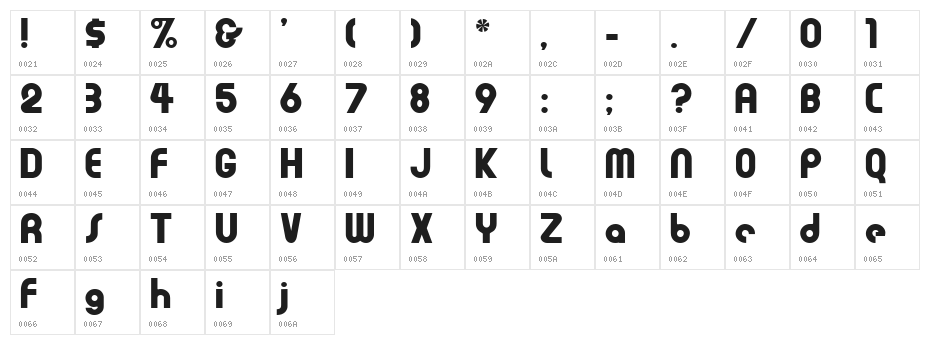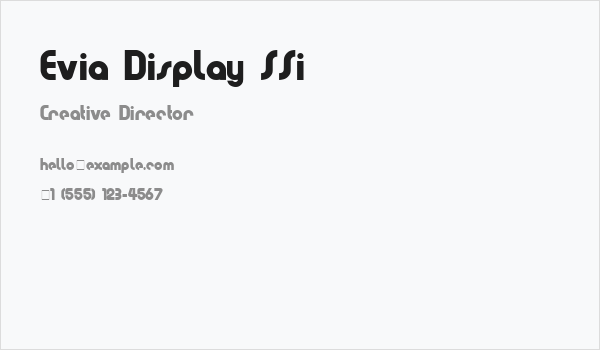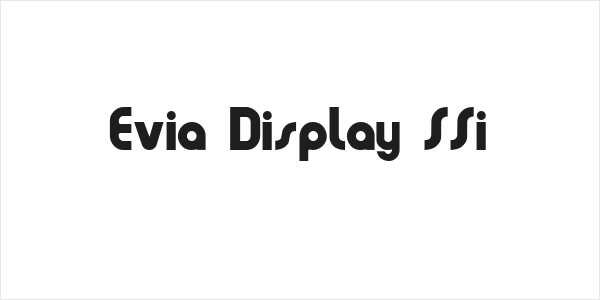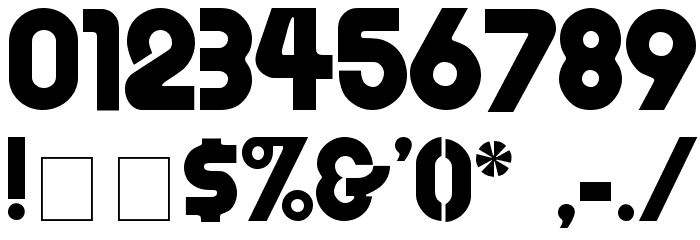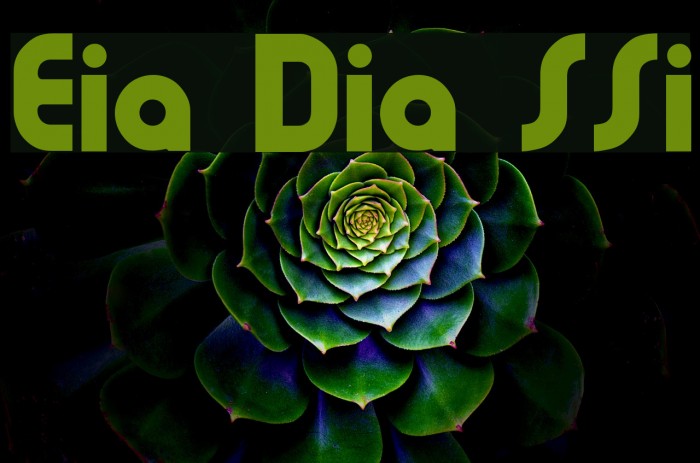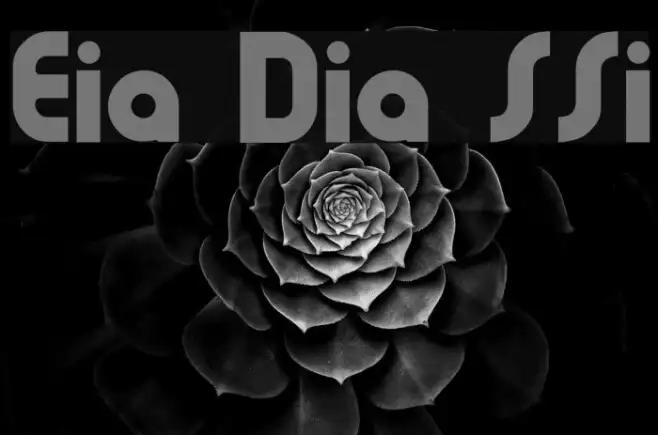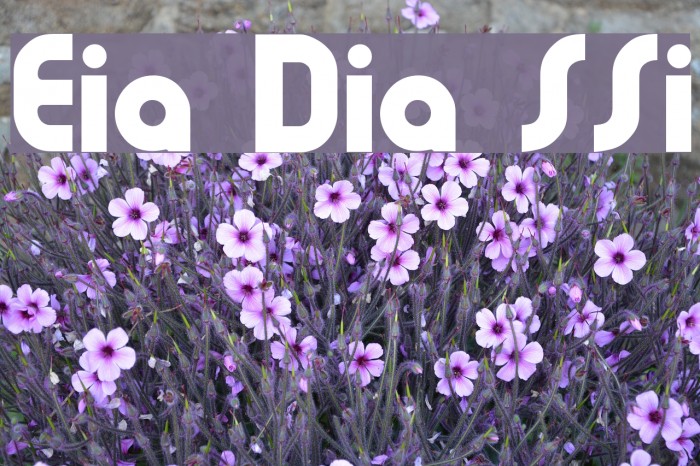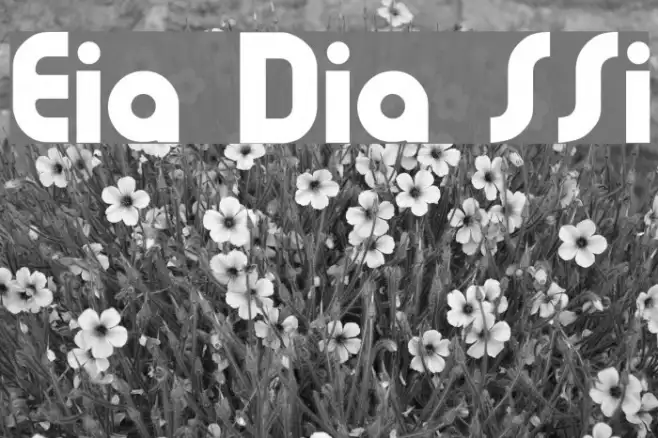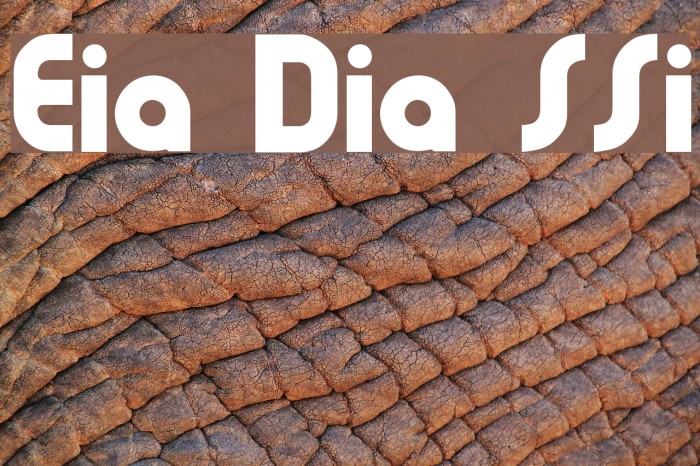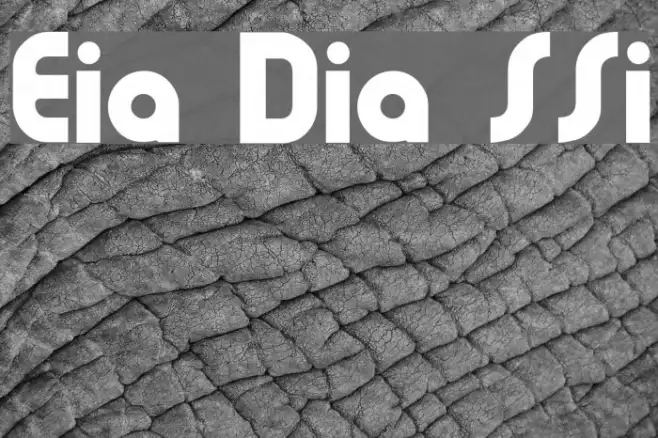
Evia Display SSi Font
Evia Display SSi Description
This font features a bold and geometric design with a strong emphasis on rounded shapes and clean lines. The uppercase letters are uniform in height, creating a cohesive and structured appearance. The lowercase letters maintain the same rounded aesthetic, with a playful yet modern twist. Numbers are bold and easily legible, while special characters are designed to match the overall style. The font's thick strokes and minimal contrast make it highly visible and impactful, suitable for attention-grabbing designs.